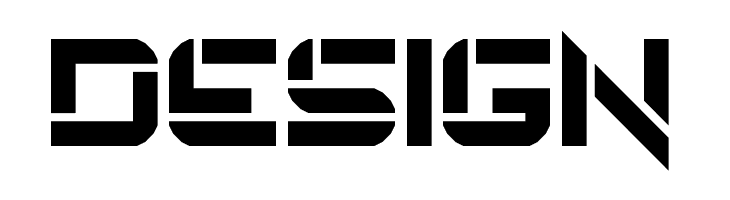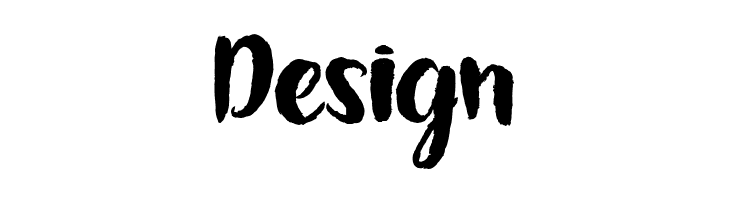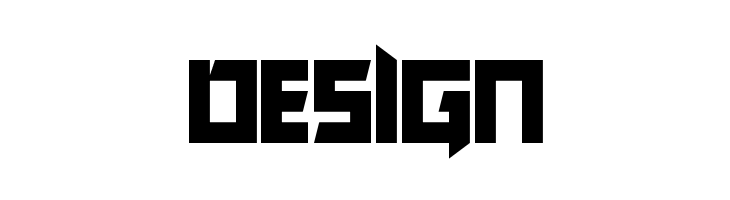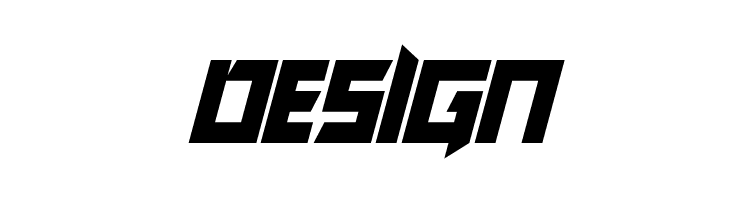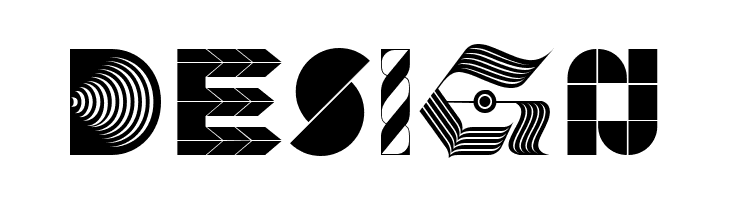
A playful and whimsical font with flowing, irregular strokes and dynamic characters.
A playful, handwritten-style font with bold, dynamic strokes.
A bold, italic script font with dynamic and flowing letterforms.
An elegant, cursive italic font with smooth curves and a sophisticated style.
A modern, rounded sans-serif font with a clean and approachable design.
A bold, rounded sans-serif font with a modern and friendly appearance.
A modern, italic sans-serif font with a sleek and dynamic style.
A bold, geometric font with a retro flair, featuring blocky uppercase and narrow lowercase letters.
A bold, playful handwritten font with thick strokes and a whimsical style.
A decorative icon font of world flags in a minimalist, monochrome style.
A decorative icon font of world flags in circular, high-contrast silhouettes.
A playful, rounded font with smooth strokes and a friendly, approachable style.
Bold, angular, and futuristic with a geometric design.
A bold, geometric font with a futuristic and digital aesthetic.
A decorative and artistic font with intricate patterns and bold designs.
A bold, futuristic font with sharp angles and geometric shapes.
A bold, angular, and futuristic italic font with a strong, tech-inspired design.
A decorative font with a cross-stitch pattern, evoking a handcrafted feel.
A distressed, grunge-style font with a bold and chaotic appearance.
A decorative font with a cross-stitch embroidery style.
A classic serif font with elegant proportions and moderate contrast, ideal for traditional and refined designs.
A classic serif typeface with moderate contrast and elegant proportions.
A classic serif typeface with elegant proportions and moderate contrast.
A playful, hand-drawn style font with bold, organic strokes.